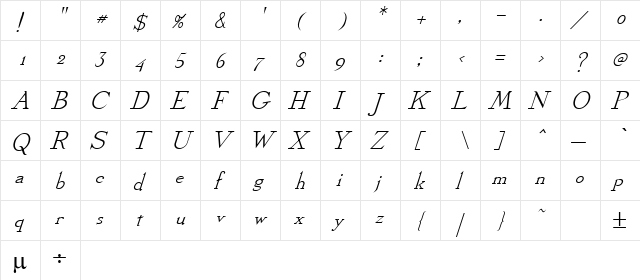
Dickens Italic
Design Context for Dickens Typeface
Dickens offers clean, dependable letterforms without strong stylistic allegiance, making it a practical choice for designers who need flexibility. The slanted form adds forward momentum and visual energy.
Pro Tip: Try Dickens for annotation and caption copy alongside an upright companion — the contrast in angle creates a dynamic but ordered typographic system.